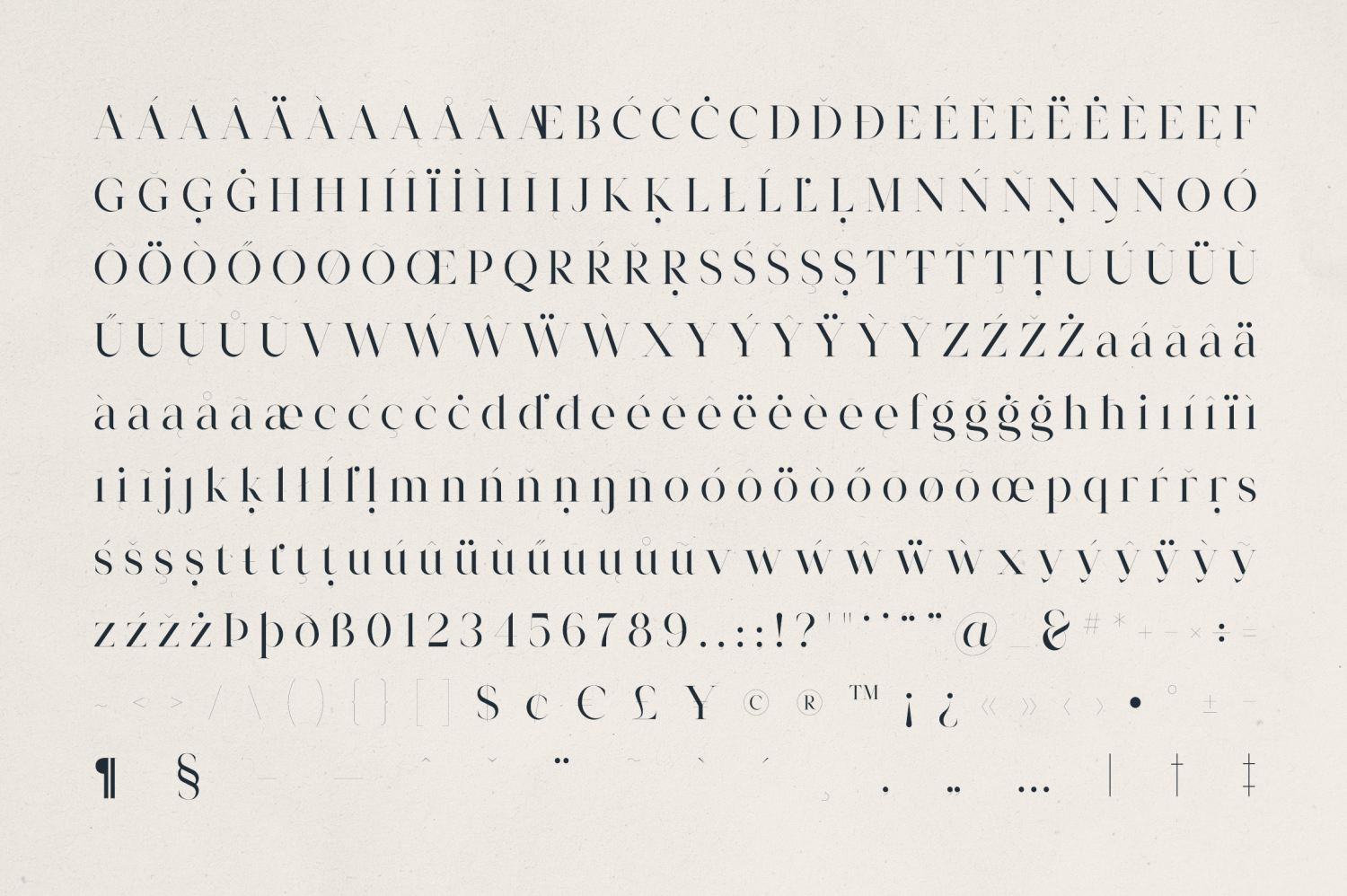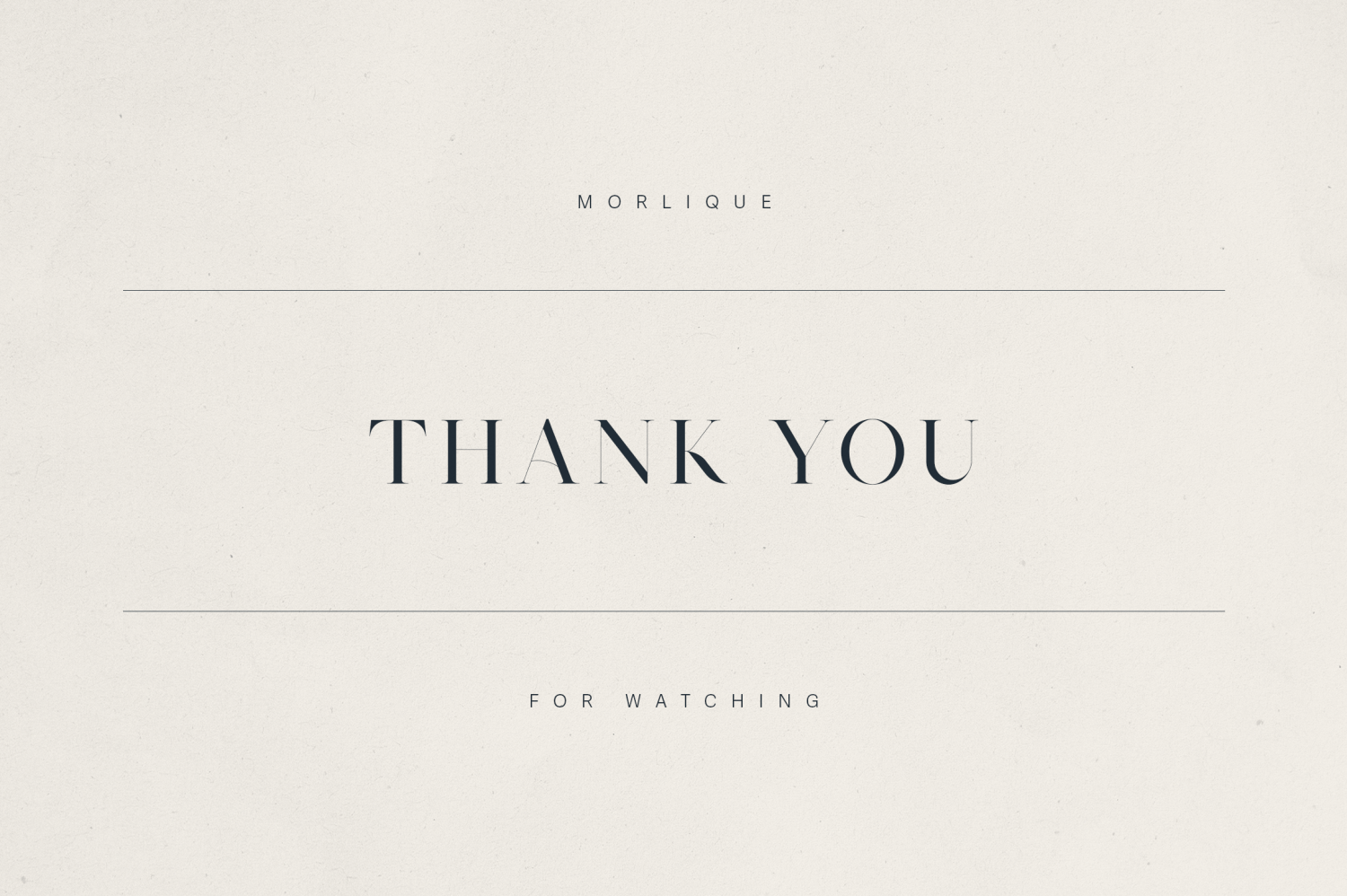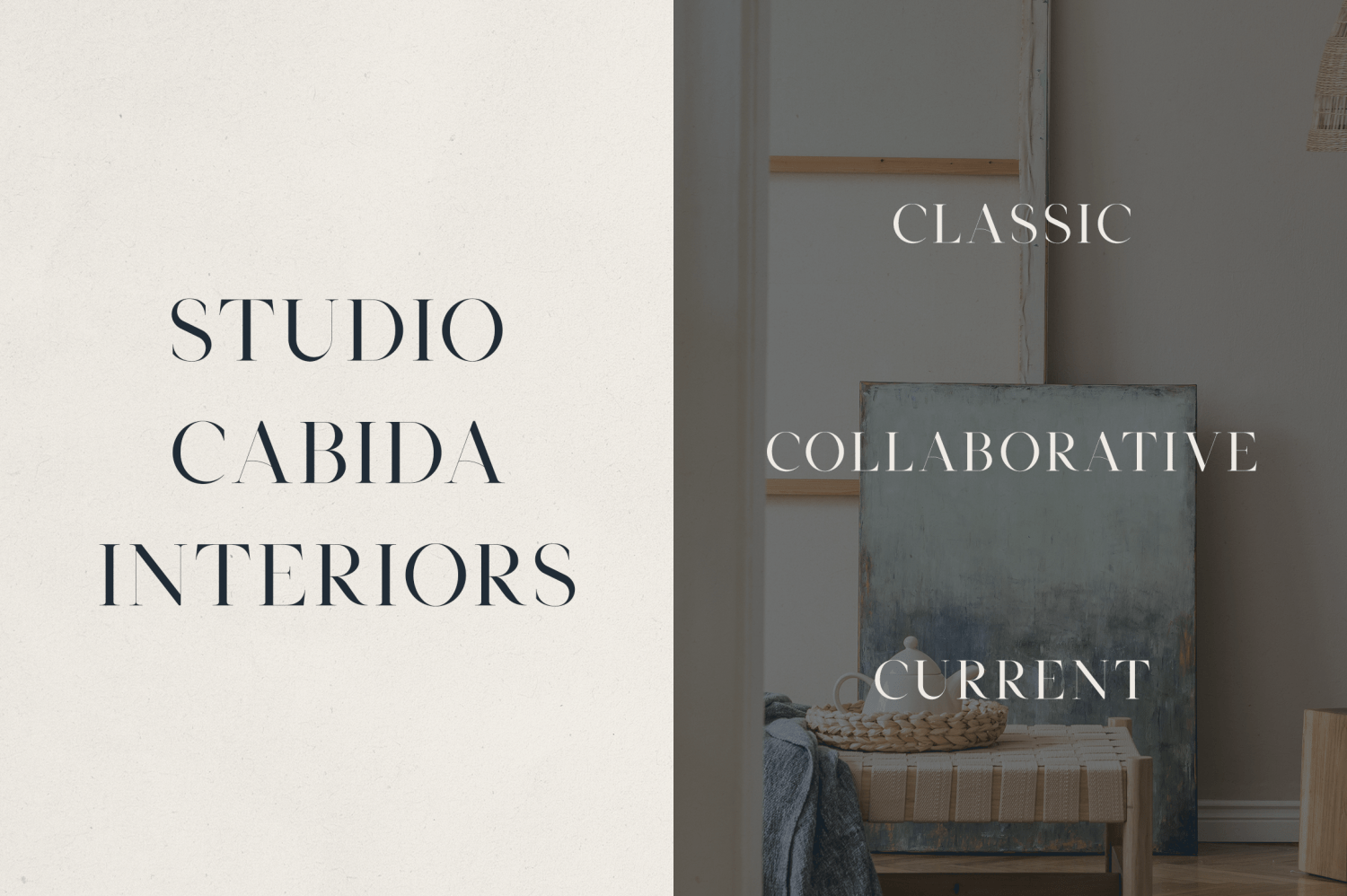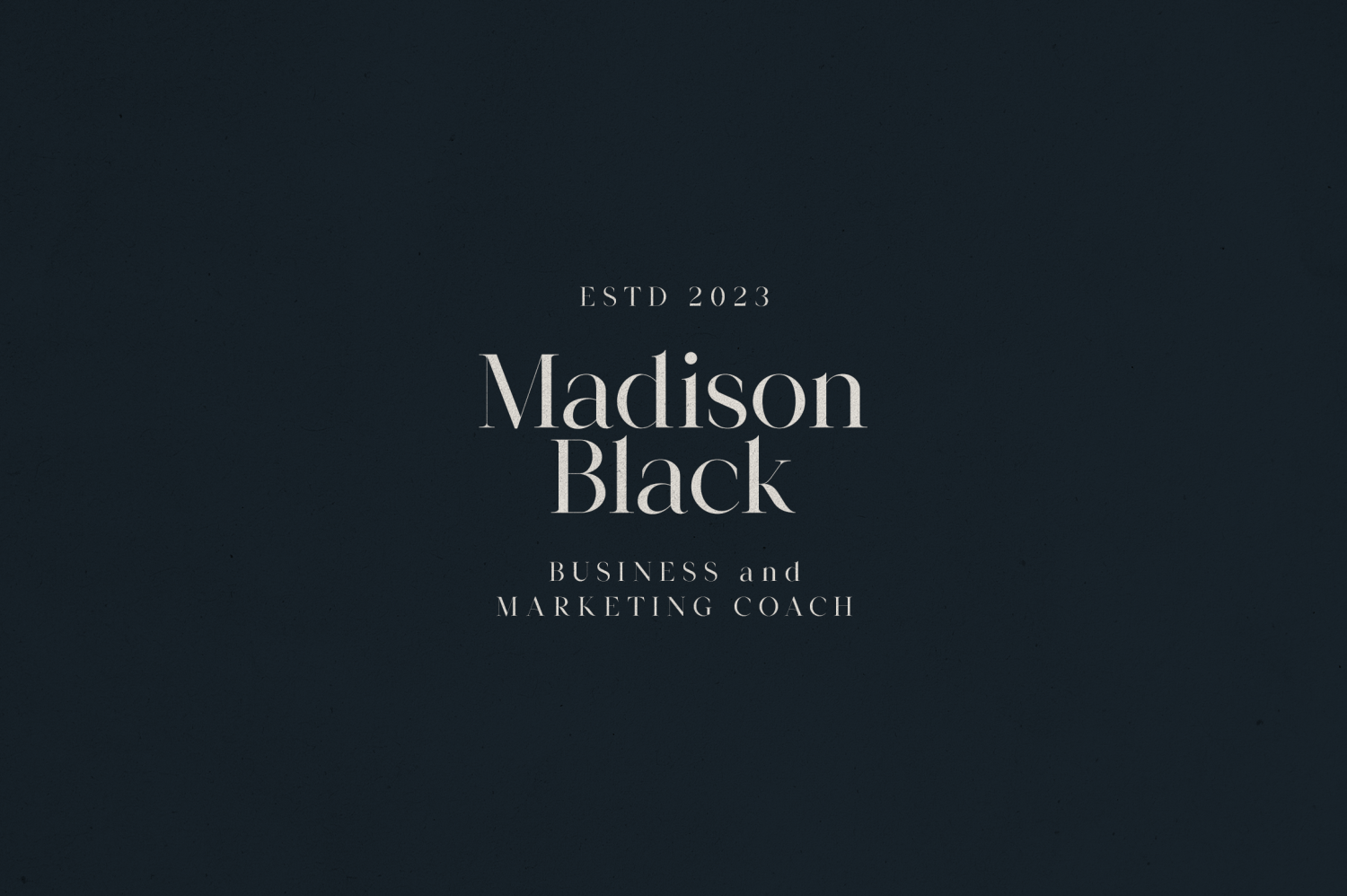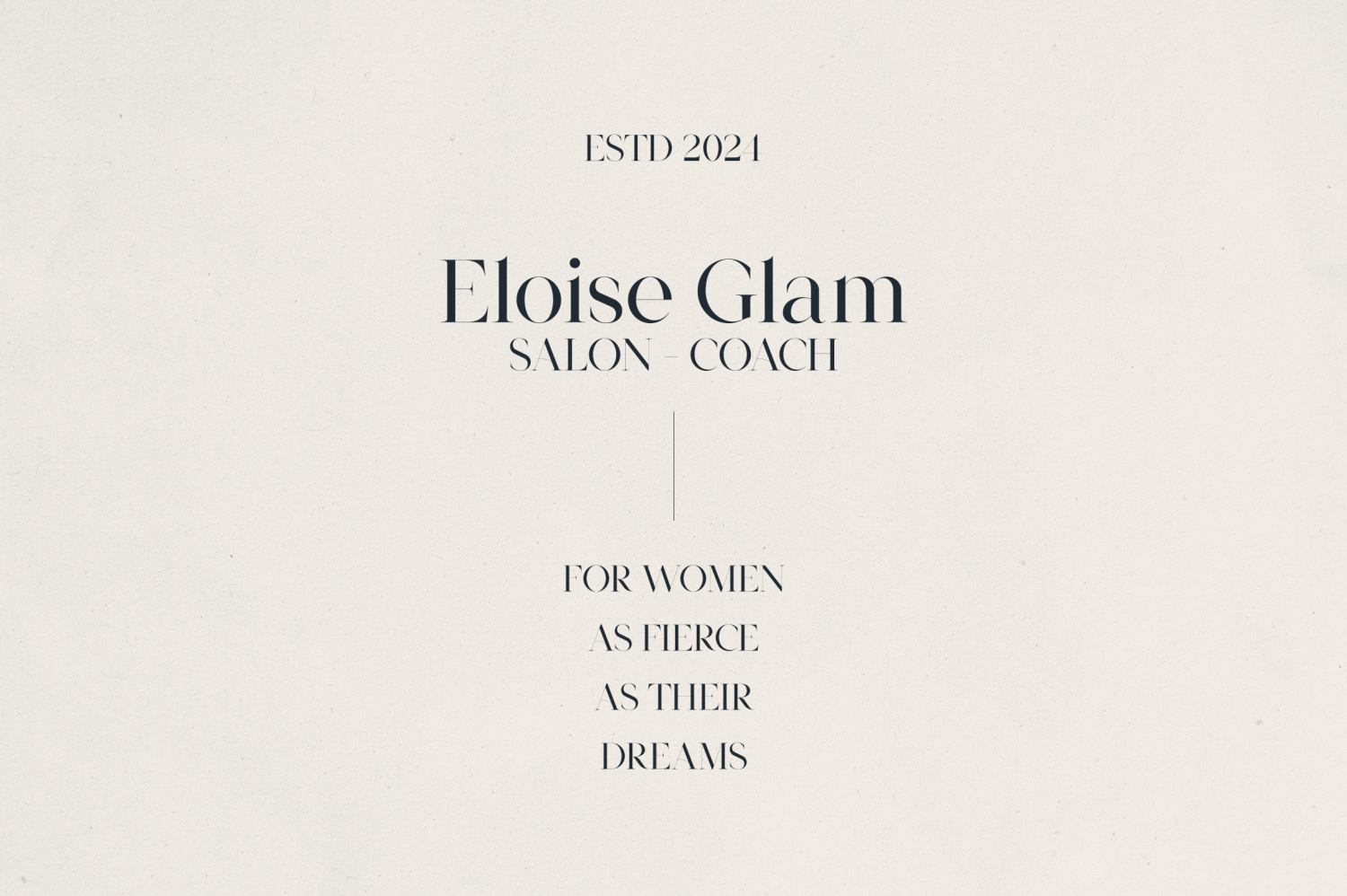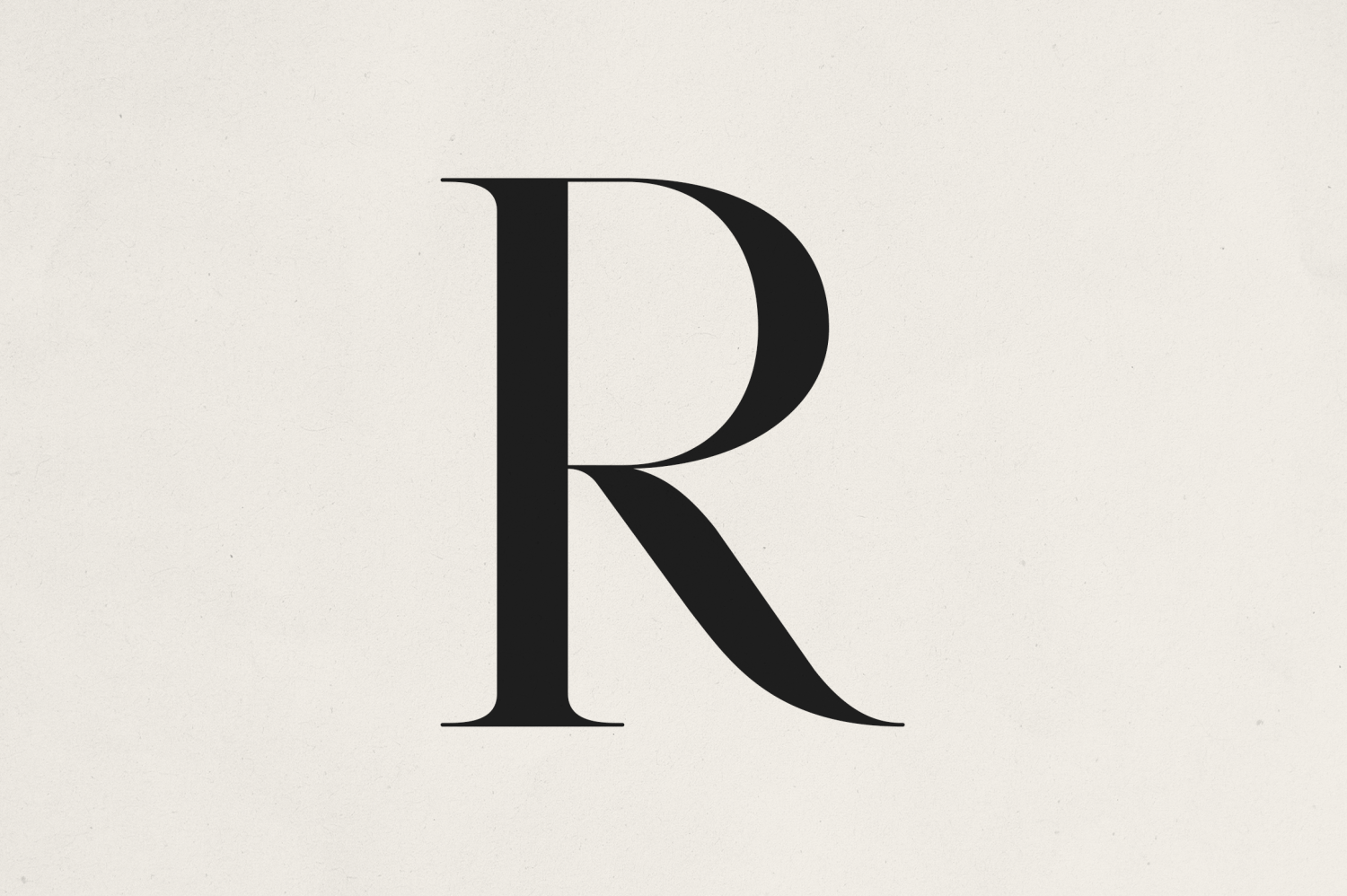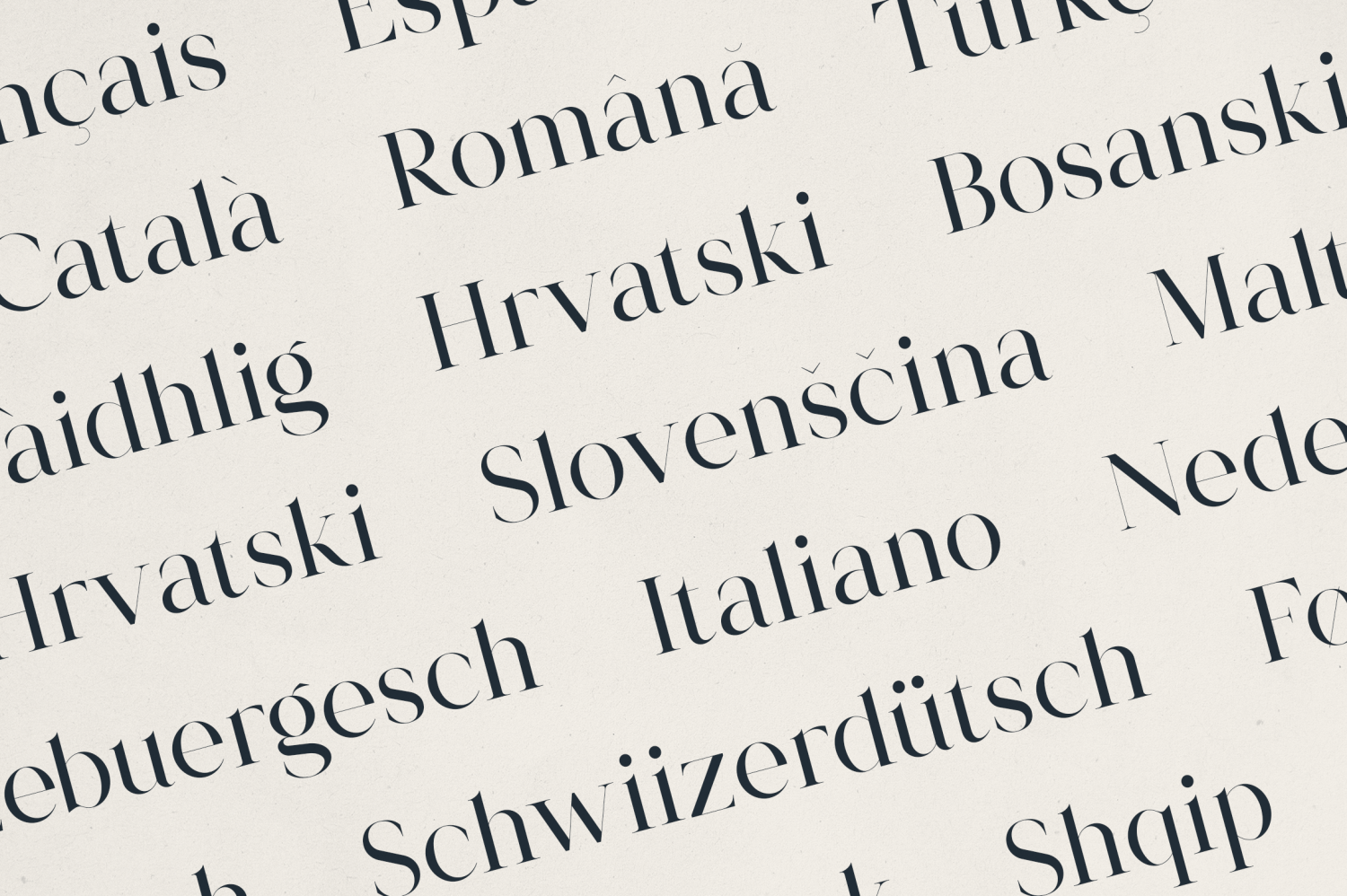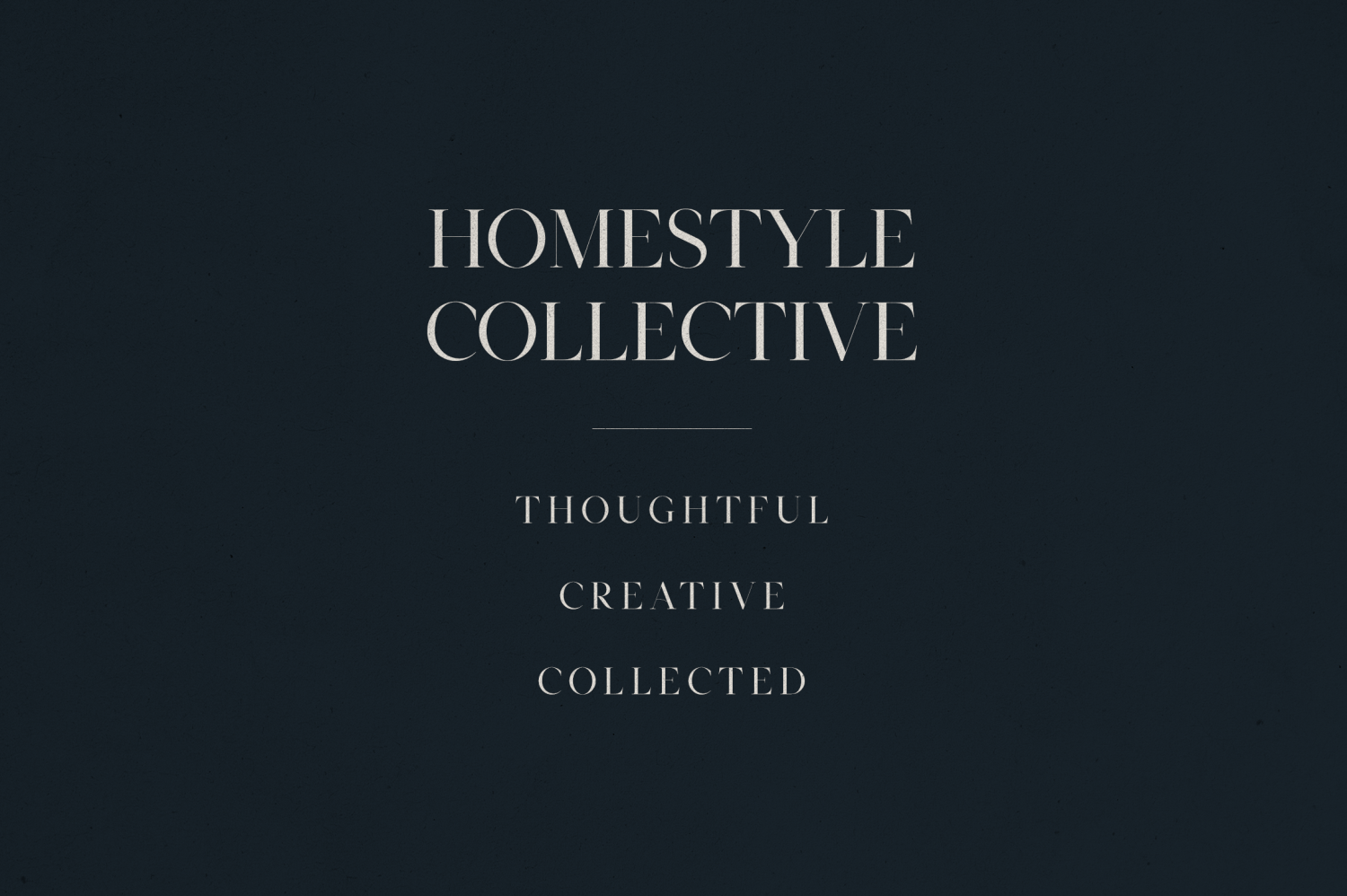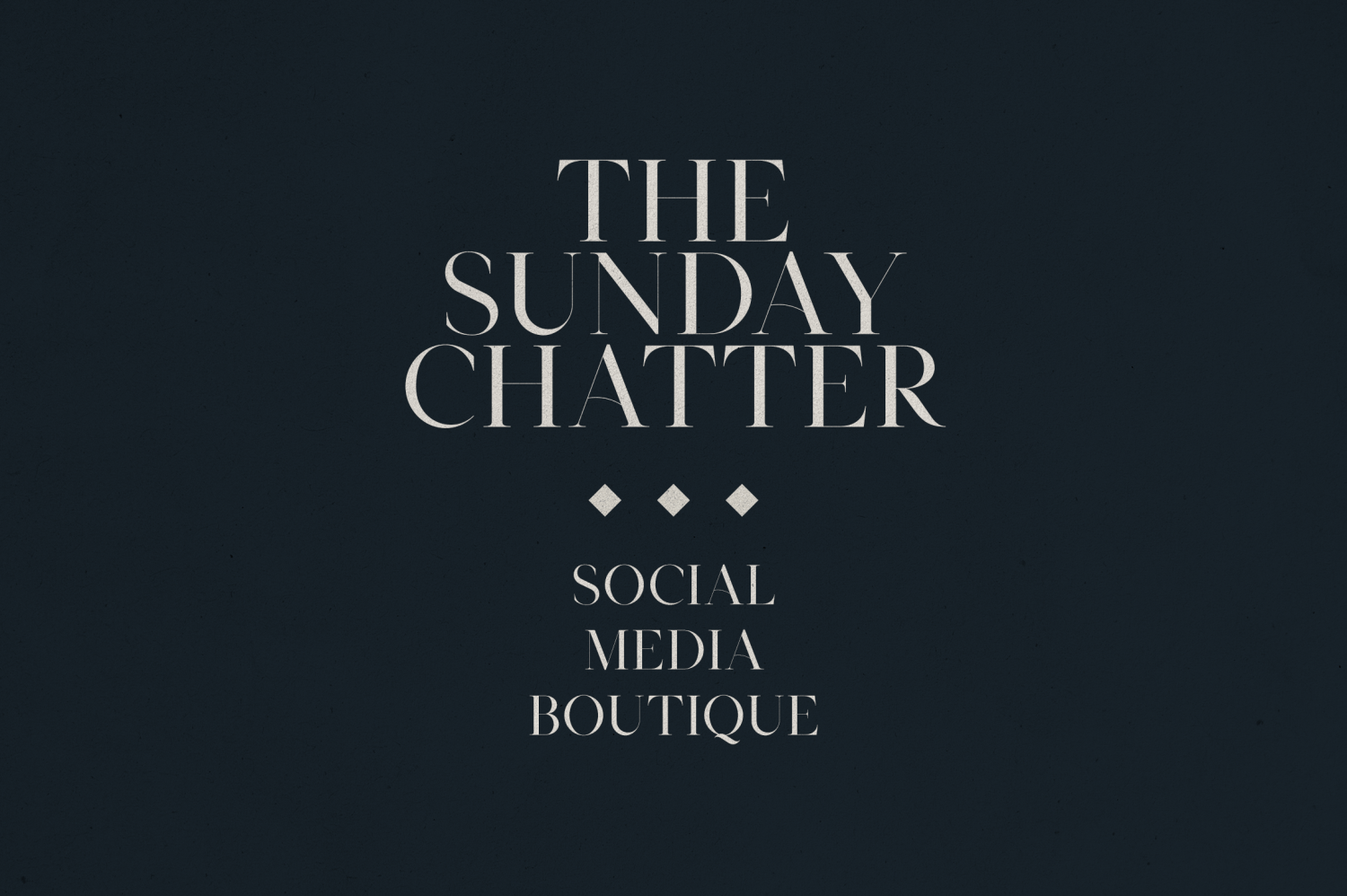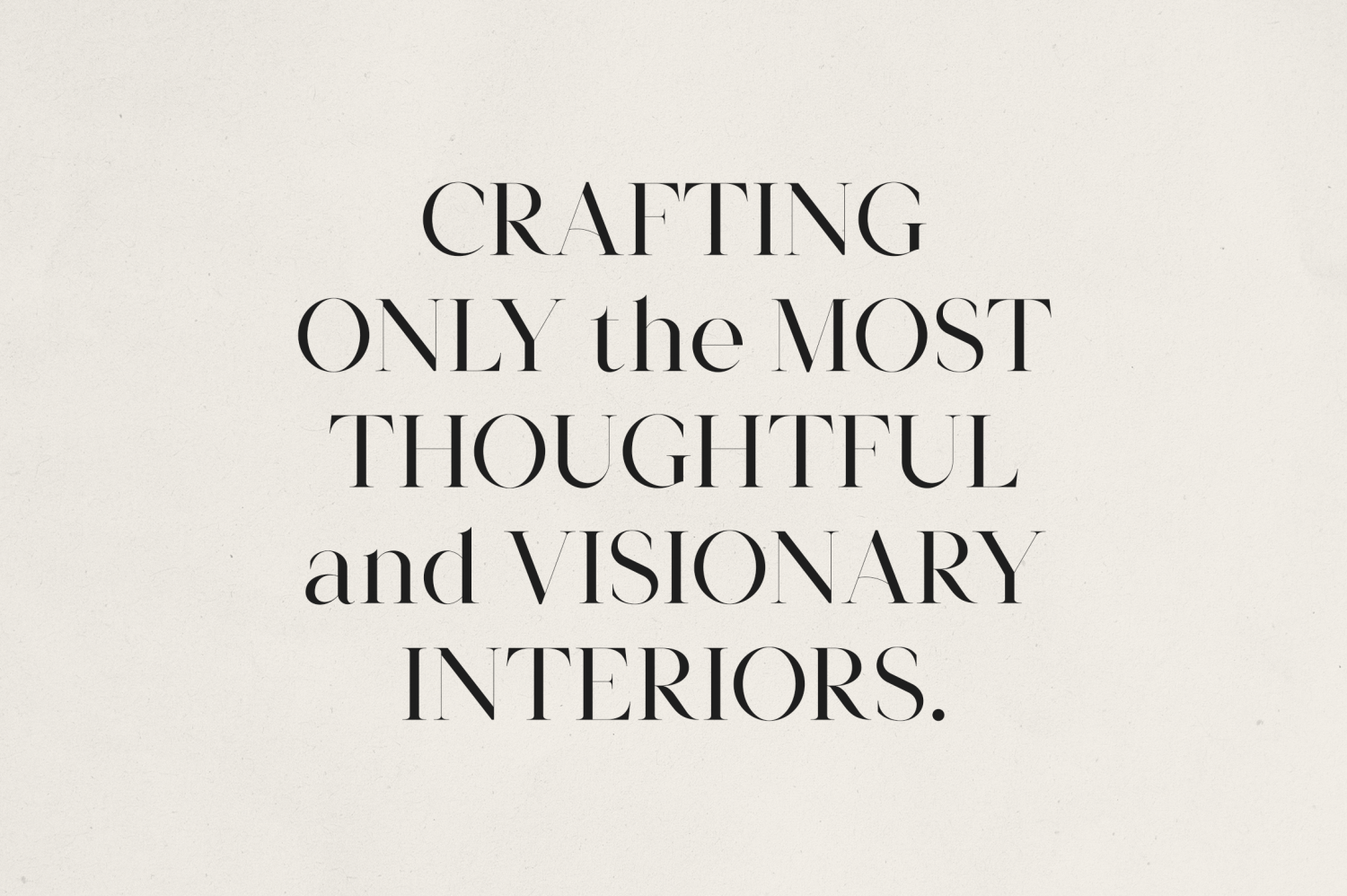
Morlique Serif Font
Discover Morlique, a high-contrast serif font that exudes elegance, refinement, and modern classic appeal. Perfectly suited for branding, editorial design, logos, high-end packaging, and creative businesses, Morlique combines graceful curves with sharp, confident serifs to deliver a timeless and luxurious look. With extensive multilingual support this font is both versatile and distinctive—ideal for designers seeking a polished and elevated aesthetic.